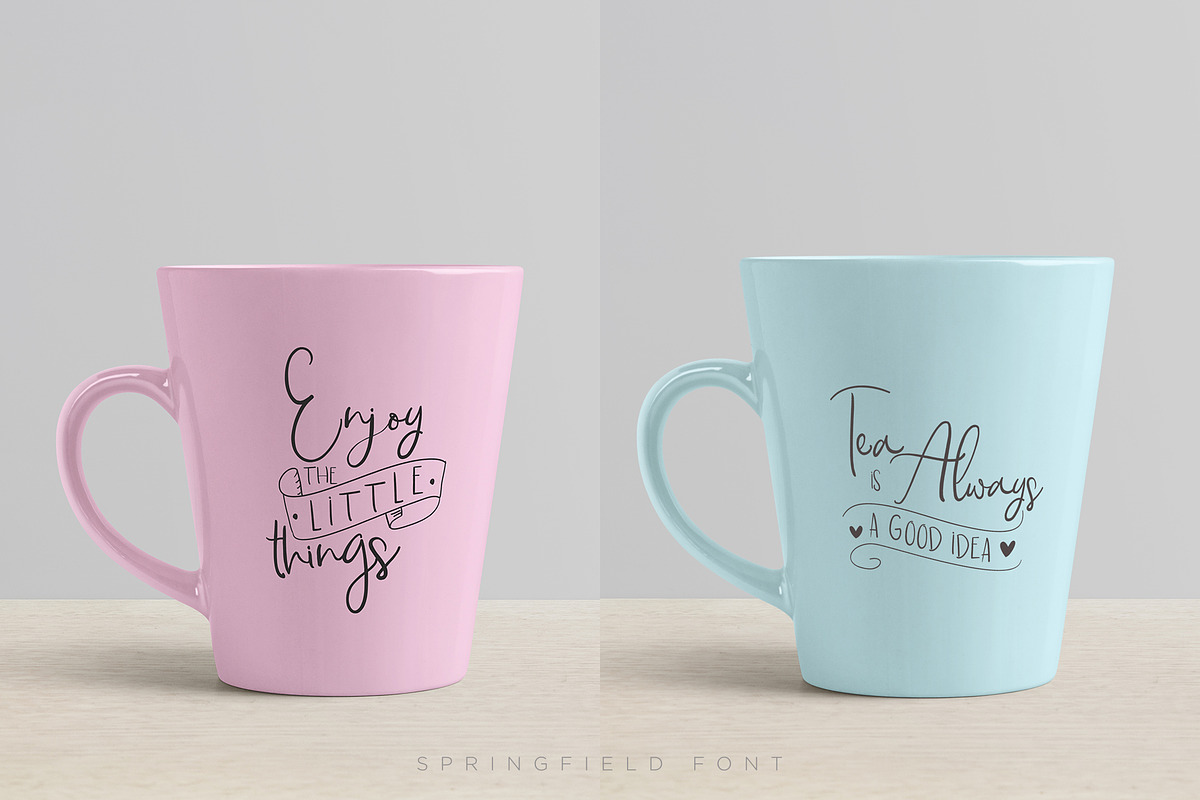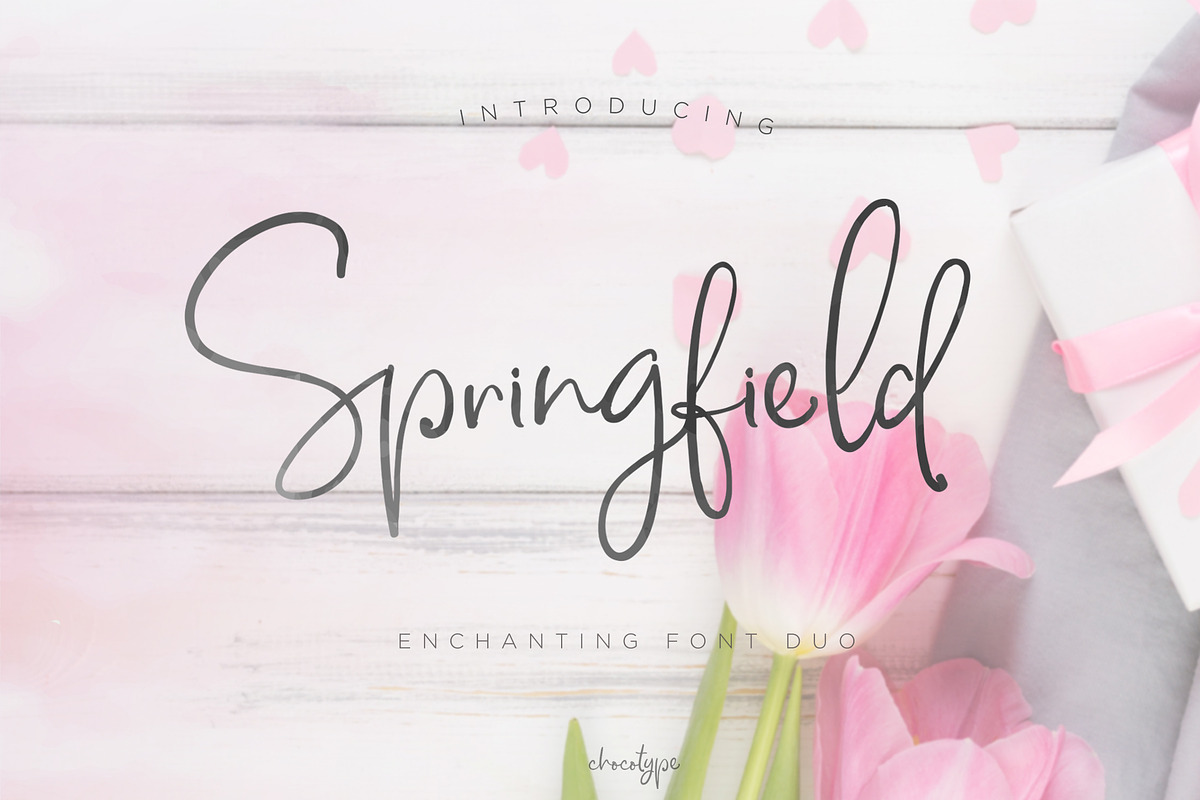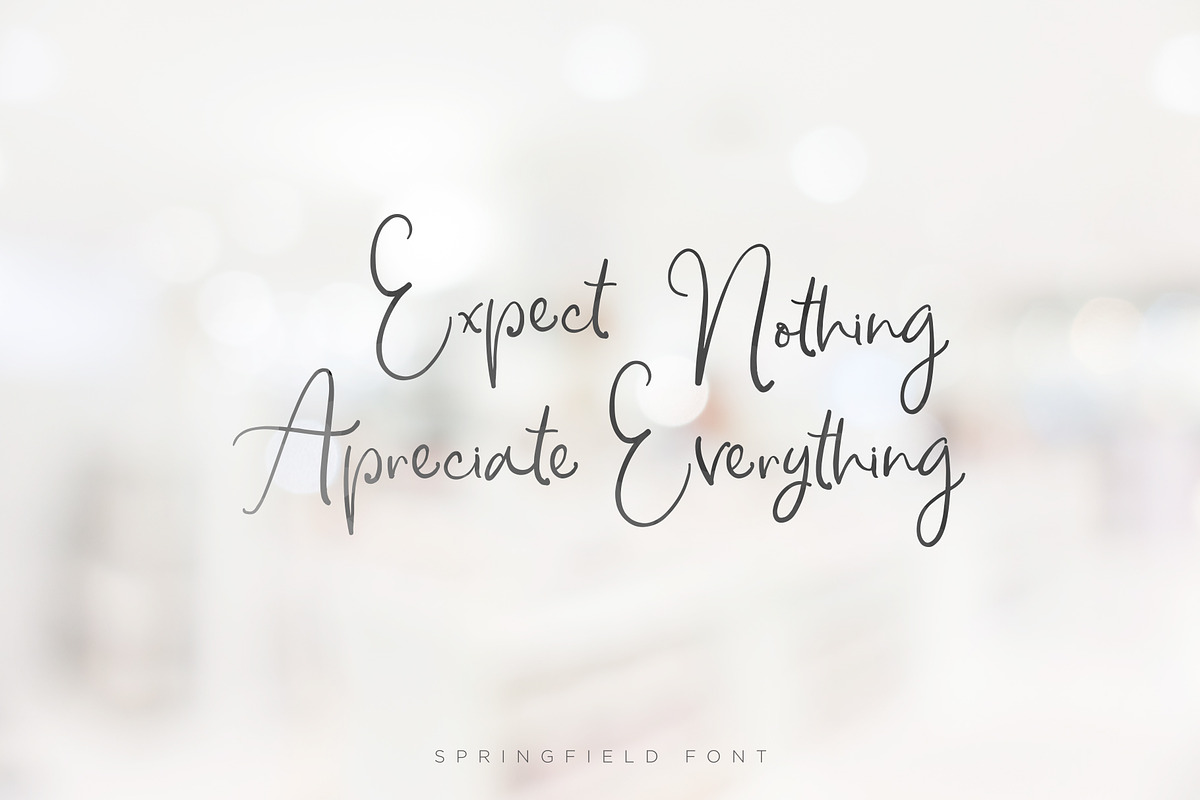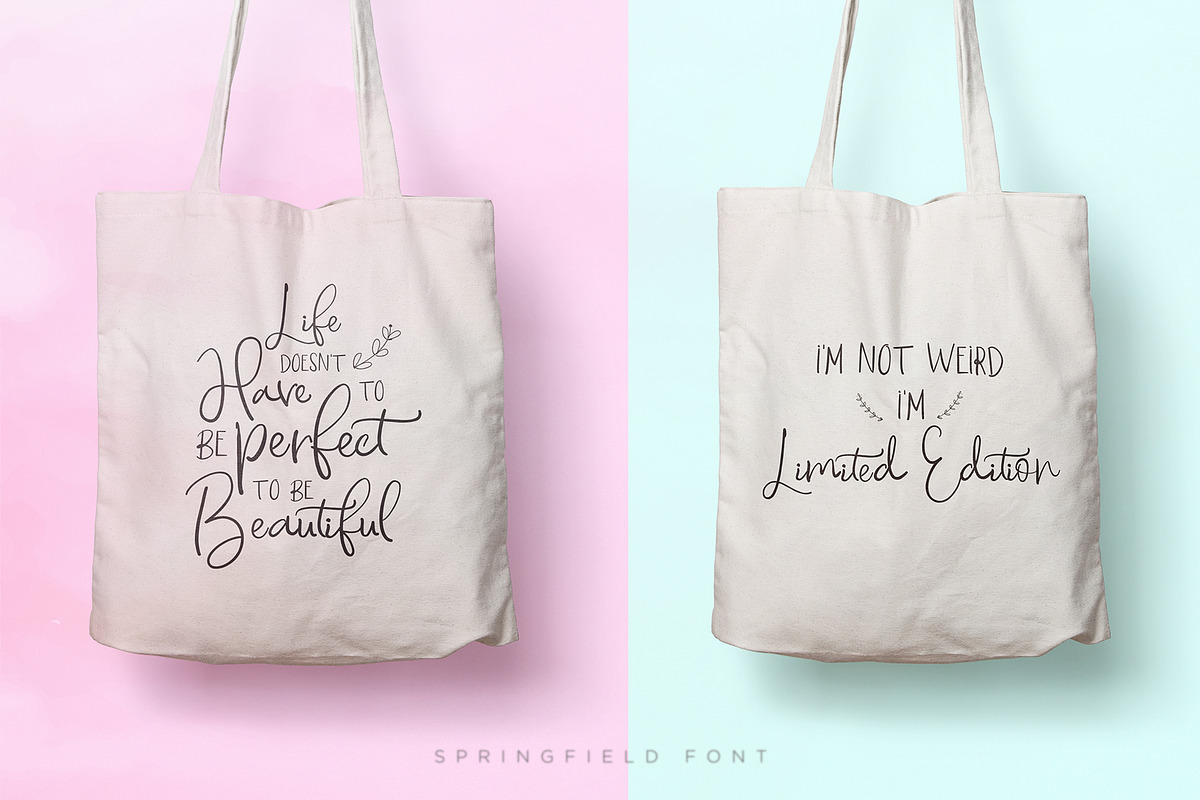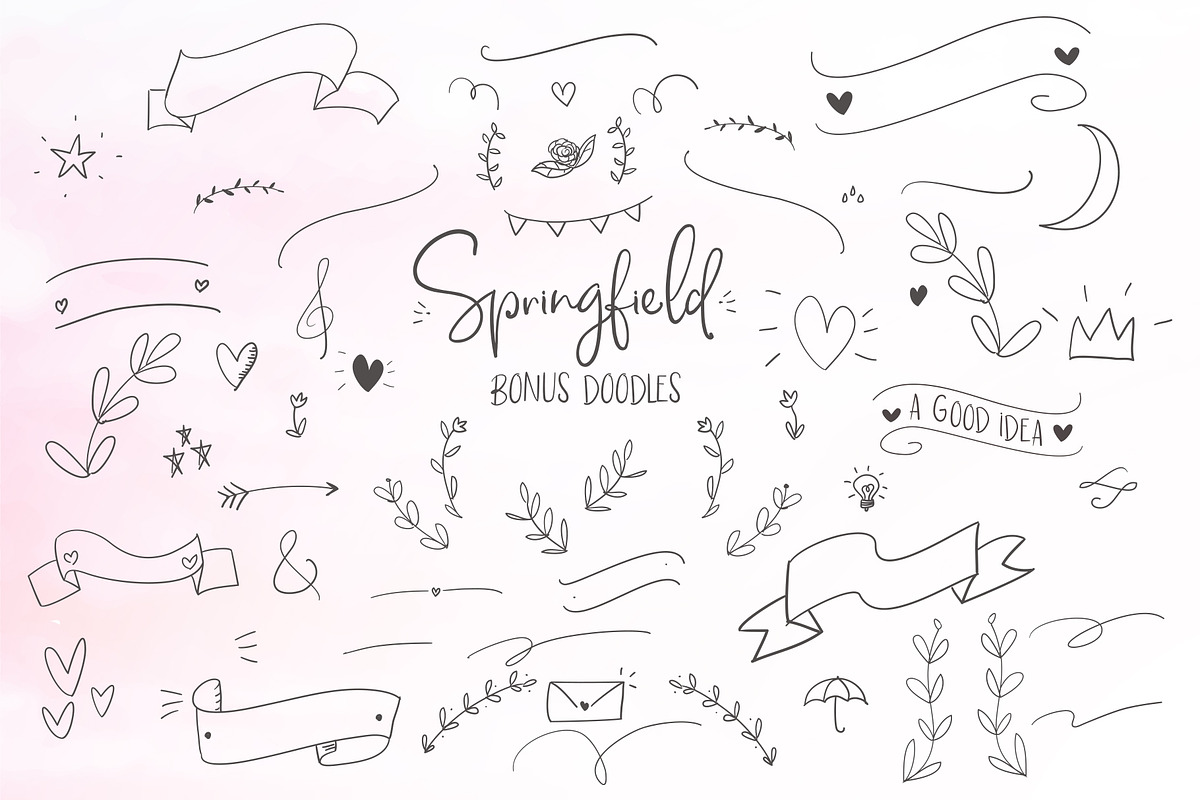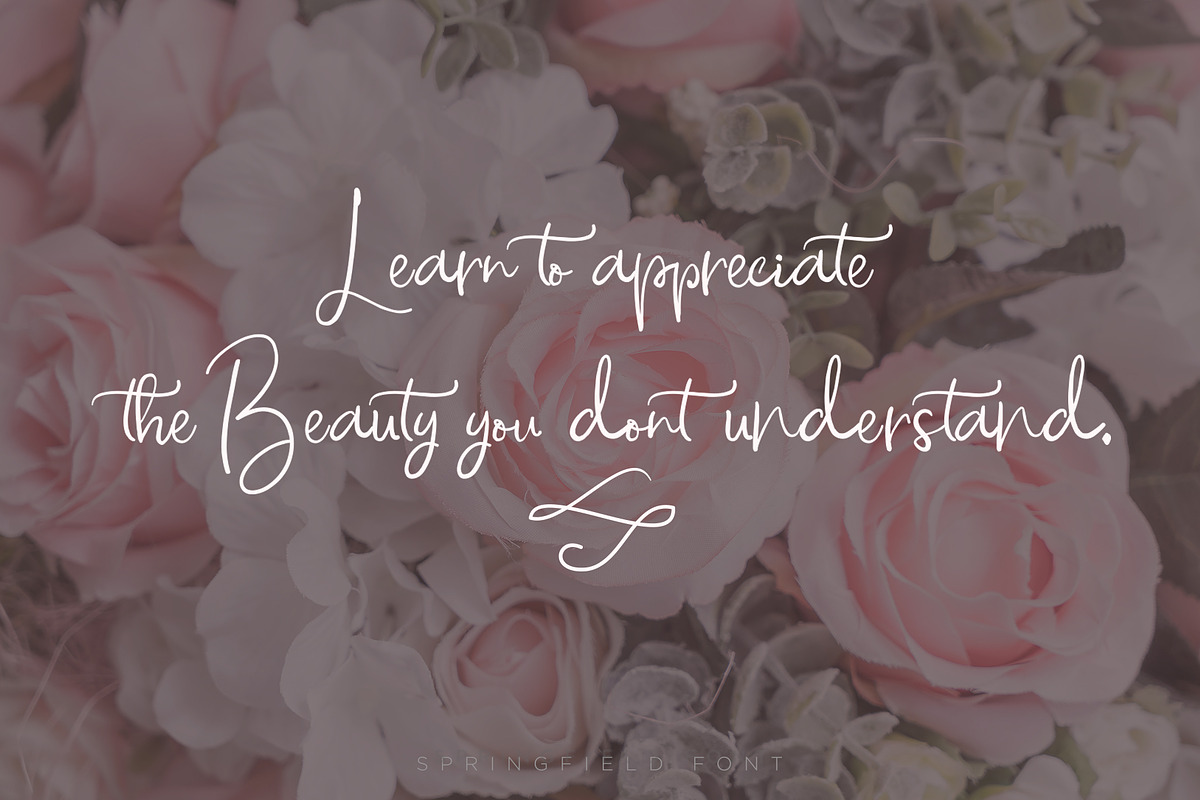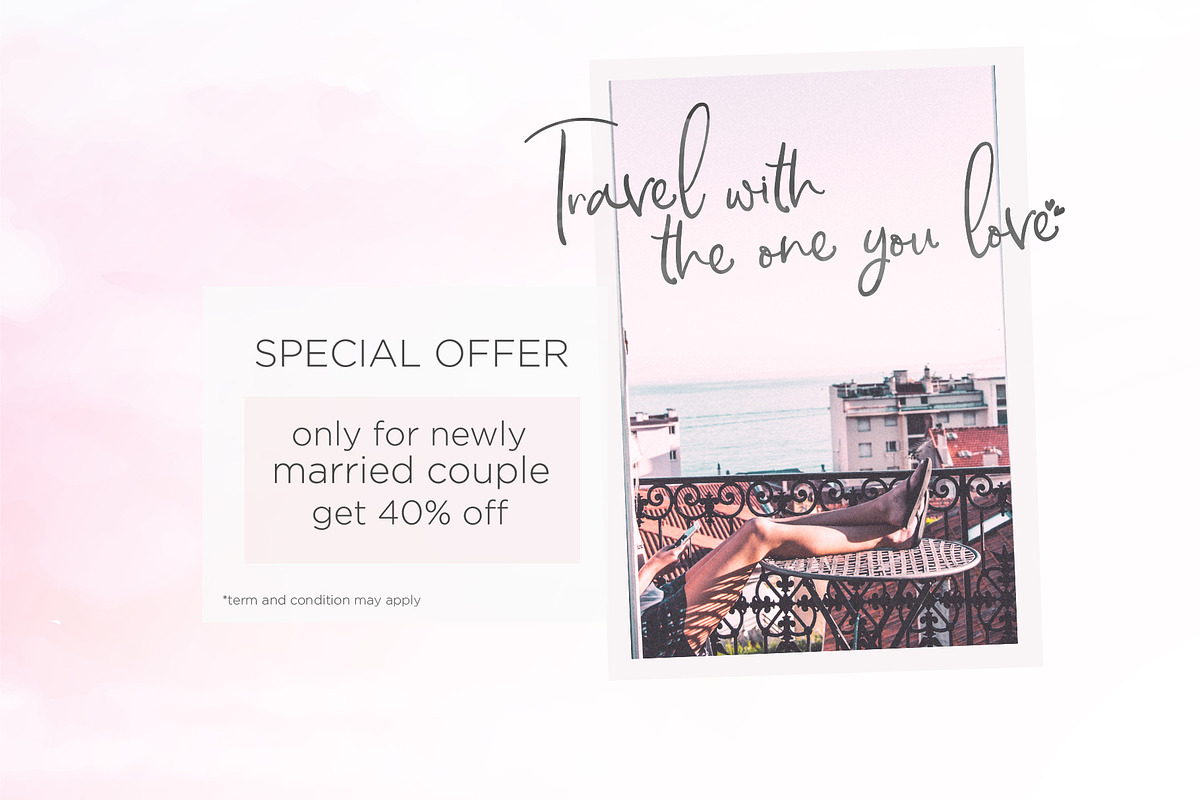
Springfield Font Duo
Introducing Springfield! An echantedl font duo!
Springfield is a handmade typeface, with cute character and a very bouncy baseline :).
Springfield Script has a large variety of alternate characters ,allowing you to make each word look completely unique to the next! Ligatures are also included. It has multilingual support with accented characters for international users.